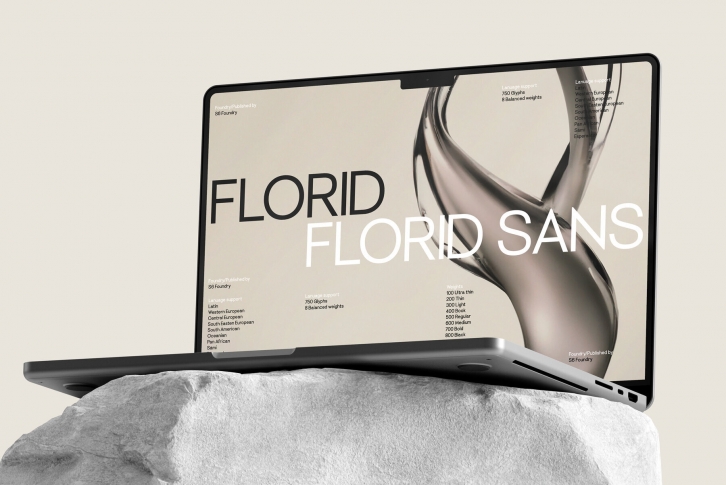
Florid Sans perfectly balances minimalist quality with a combination of contemporary details and classic styles. Florid Sans is geometric in nature with humanist quality rooted in the Swiss tradition. Comfortable, breathable apertures make it stunningly versatile.